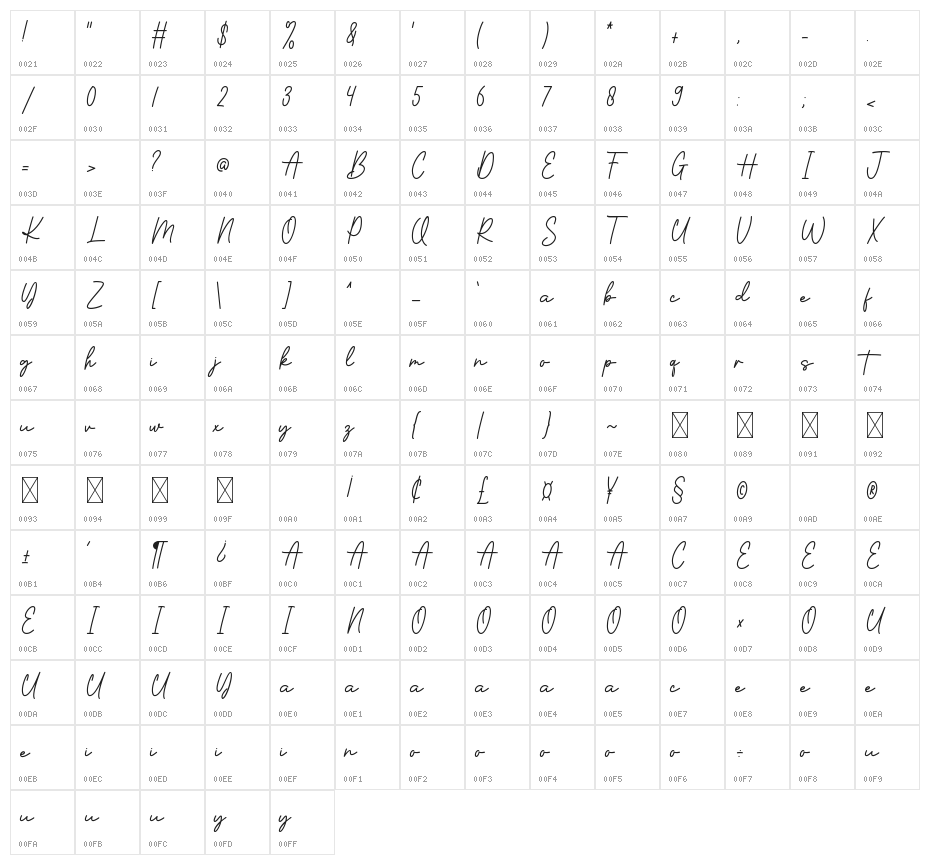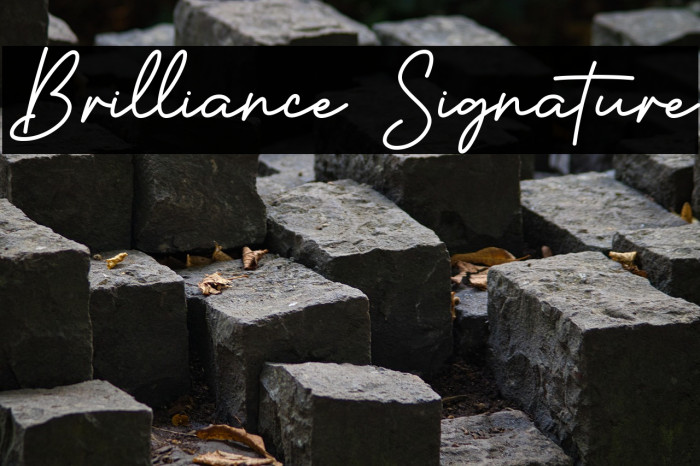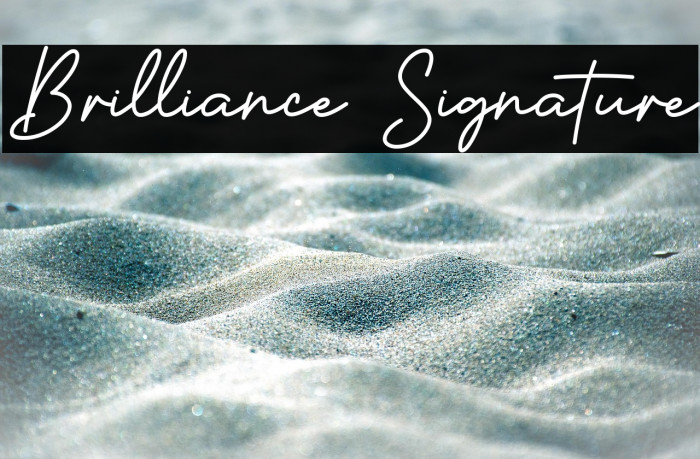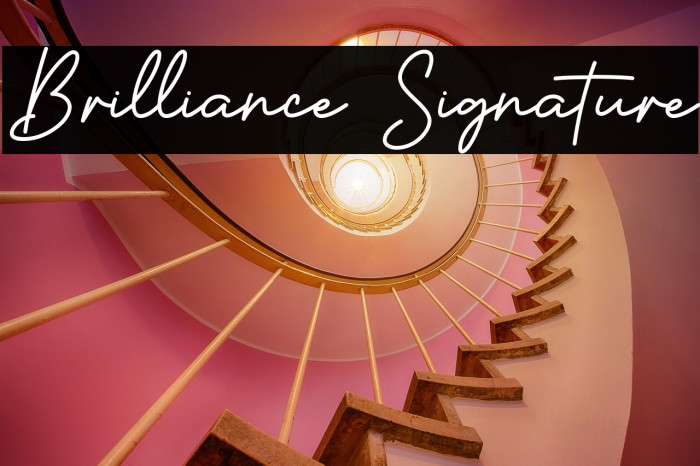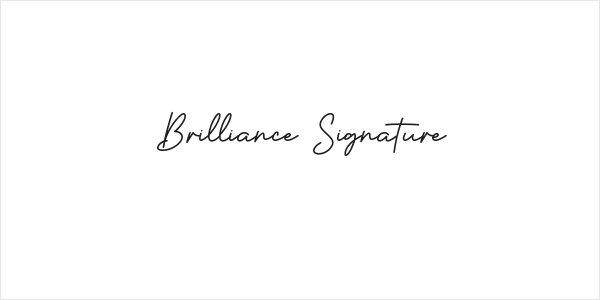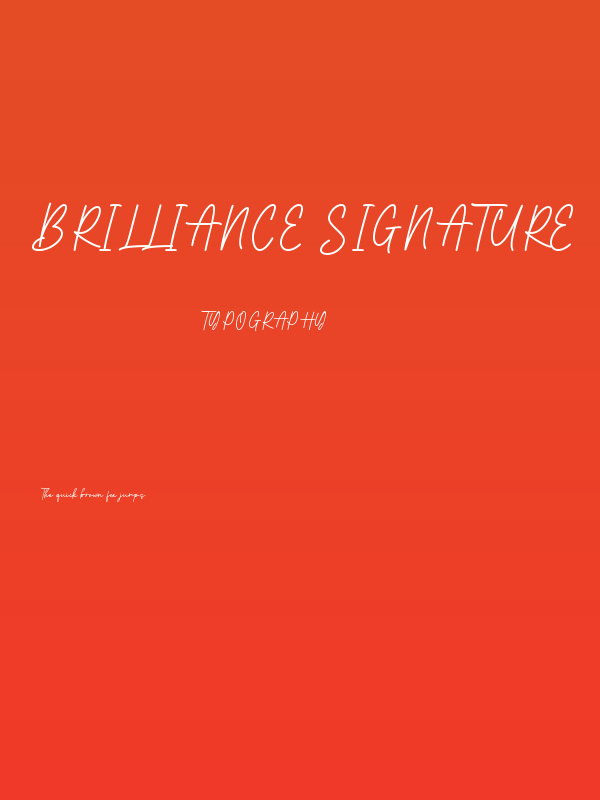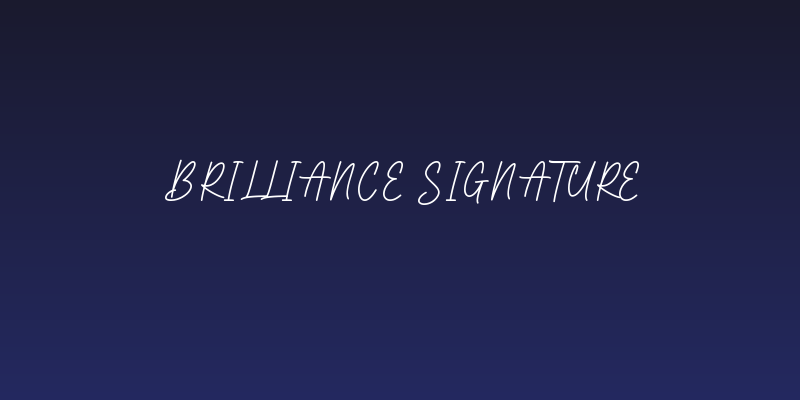
Brilliance Signature Font
Brilliance Signature Description
This font exudes a modern and elegant handwritten style, characterized by its fluid and connected letterforms. The uppercase letters are tall and slightly narrow, with a consistent slant that adds a dynamic feel. The lowercase letters maintain a smooth flow, enhancing readability while retaining a personal touch. Numbers and special characters are crafted with the same attention to detail, ensuring a cohesive look across all text elements. The overall appearance is sophisticated yet approachable, making it suitable for a variety of design applications.
| Use Case | Logos, Invitations, Social media posts |
| Proposed Projects | Ideal for wedding invitations, personal branding, social media graphics, and elegant stationery. |